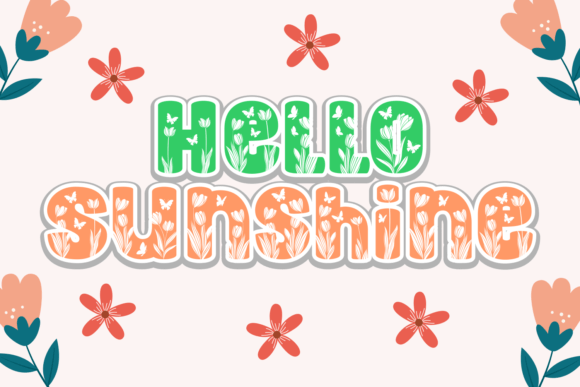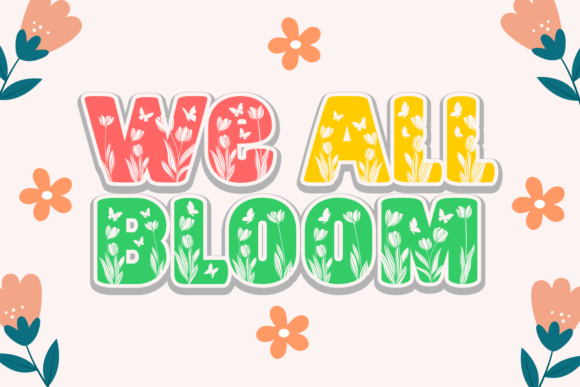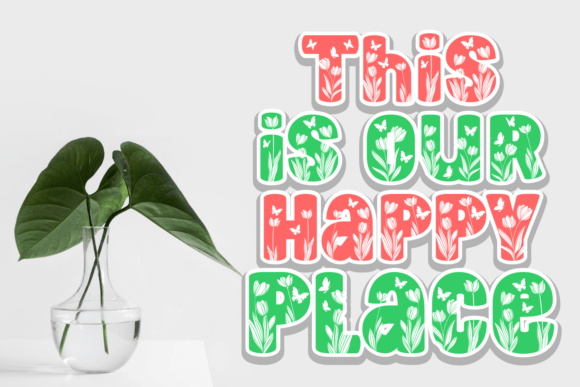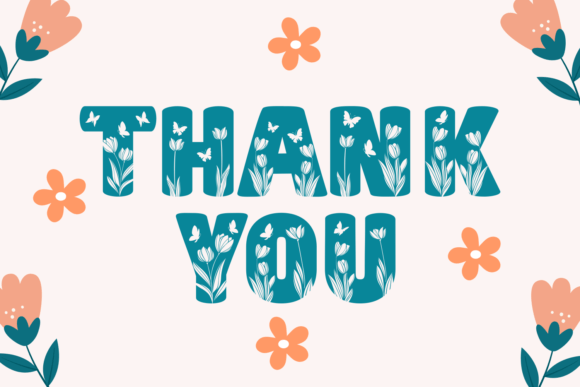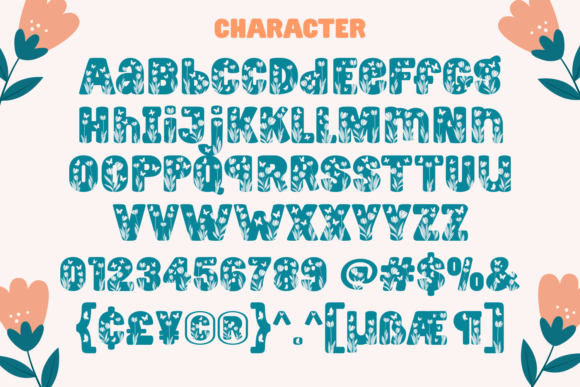
Introducing Flories Font: Elevate Your Designs with Organic Elegance
In the world of typography, fonts play a crucial role in conveying the tone and personality of a design. For designers and crafters, finding the perfect font can be a daunting task. However, if you’re looking for a beautiful and versatile decorative font, look no further than Flories Font. This stunning organic font is sure to become an invaluable addition to your font library, capable of elevating any creation with its lovely ornaments and elegant charm.
The Beauty of Flories Font
Flories Font is an exquisite example of organic typography, boasting a unique and beautiful design that is sure to capture the attention of your audience. Its decorative elements and lovely ornaments add a touch of sophistication and whimsy, making it perfect for a wide range of design projects. Whether you’re working on a wedding invitation, a branding campaign, or a craft project, Flories Font is sure to bring a level of elegance and refinement that will set your design apart.
Key Features of Flories Font
- Organic and Decorative Design: Flories Font features an organic and decorative design that is perfect for adding a touch of elegance to your designs.
- Lovely Ornaments: The font includes a range of lovely ornaments that can be used to add a touch of whimsy and sophistication to your designs.
- Versatile: Flories Font is versatile and can be used for a wide range of design projects, from wedding invitations to branding campaigns.
Uses for Flories Font
Flories Font is a versatile font that can be used for a wide range of design projects. Here are a few examples of how you can use this beautiful font:
- Wedding Invitations: Flories Font is perfect for wedding invitations, adding a touch of elegance and sophistication to your design.
- Branding Campaigns: The font can be used to create stunning branding campaigns, including logos, business cards, and letterheads.
- Craft Projects: Flories Font is perfect for craft projects, such as scrapbooking, card making, and other paper crafts.
- Digital Designs: The font can be used for digital designs, including social media graphics, blog posts, and website headers.
Why Choose Flories Font?
There are many reasons why you should choose Flories Font for your design projects. Here are a few:
- Unique Design: Flories Font features a unique and beautiful design that will set your design apart from the rest.
- High-Quality: The font is of high quality, ensuring that it will look great in any design.
In conclusion, Flories Font is a beautiful and versatile decorative font that is sure to become an invaluable addition to your font library. Its organic and elegant design, lovely ornaments, and versatility make it perfect for a wide range of design projects. Whether you’re a designer or crafter, Flories Font is a great choice for anyone looking to elevate their designs with a touch of elegance and sophistication.